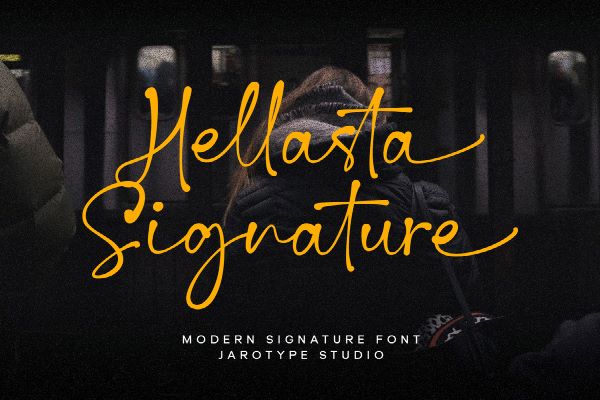
Hellasta Signature Font
Hellasta Signature is an organic handwritten script that moves with the natural rhythm and slight irregularity of a real pen in motion — flowing connections, relaxed letterforms, and a warmth that feels genuinely hand-drawn rather than mechanically constructed. The organic quality in its strokes gives it an approachable intimacy that works across a broad range of design contexts: wedding invitations and stationery, personal branding and signature logotypes, boutique product packaging, greeting cards, social media graphics, and promotional materials where a human touch is the entire point.